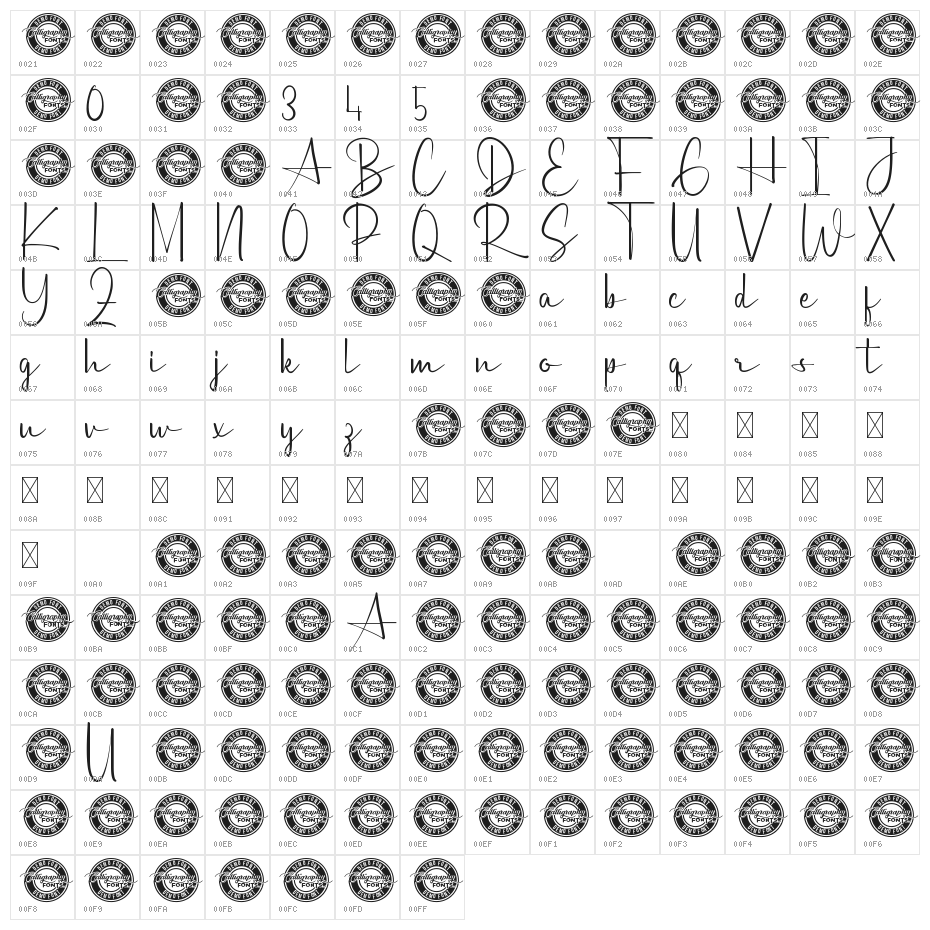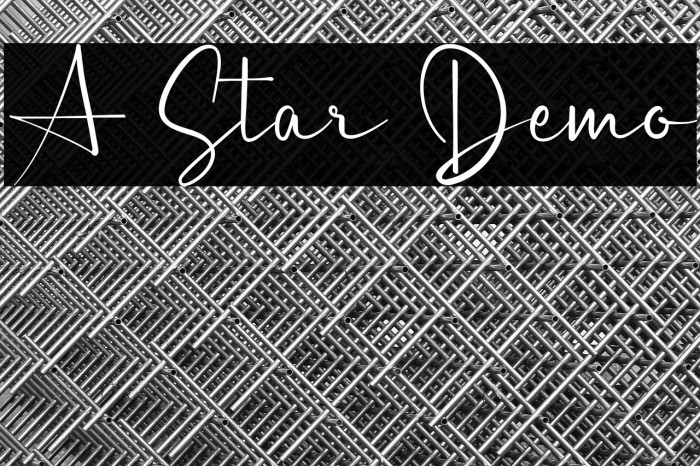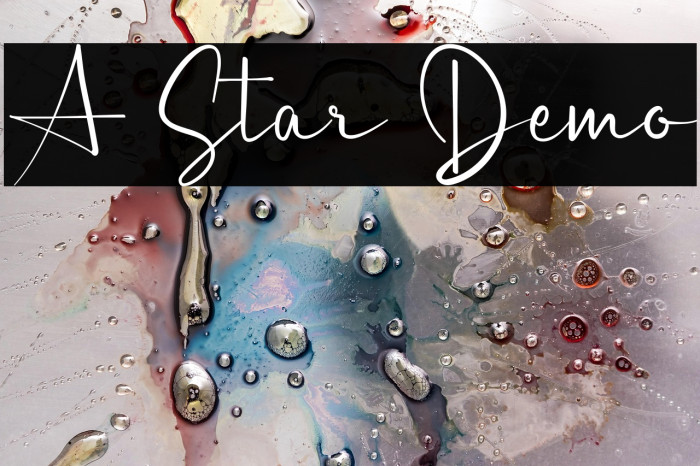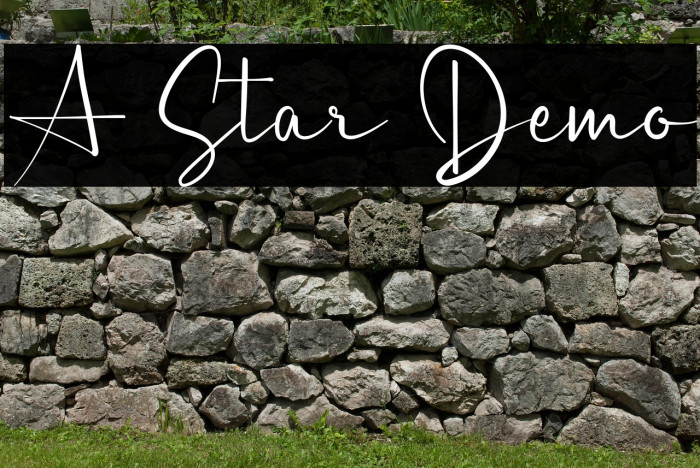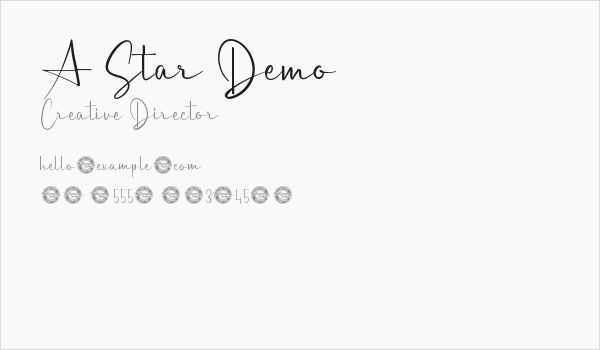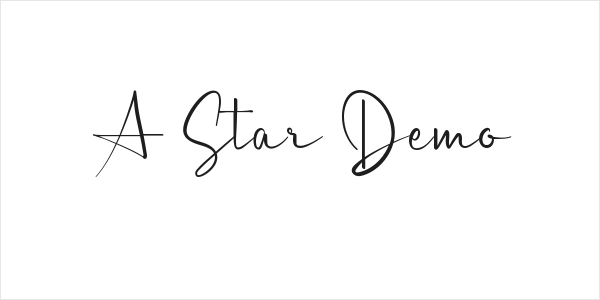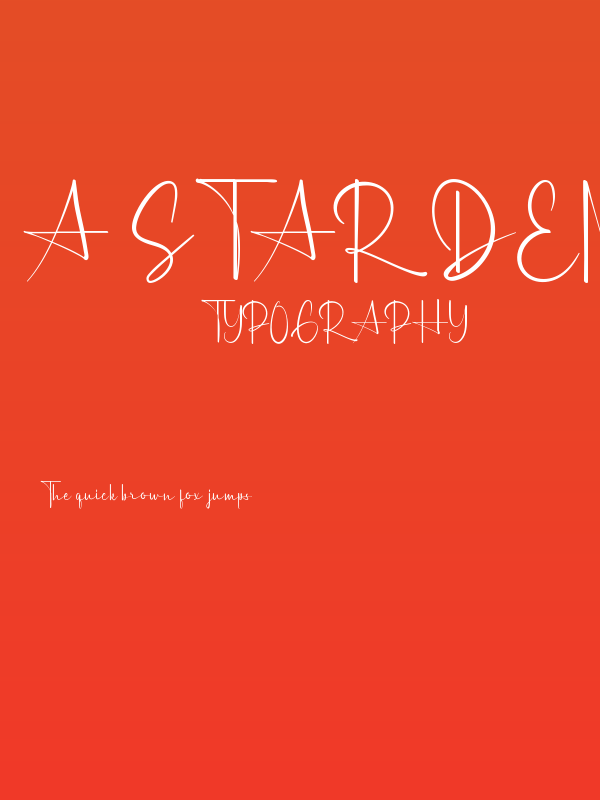
A Star Demo Font
A Star Demo Description
A decorative script font with a handwritten style, featuring unique and playful letterforms with varying stroke widths.